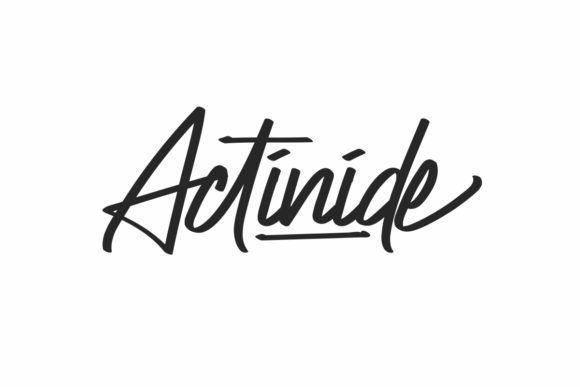
I still remember the frustration of working on a project, hours spent perfecting every detail, only to be held back by one thing: the font. It was a client request for a elegant, yet bold signature script that would make their brand stand out. I scoured the internet, tried font after font, but nothing seemed quite right. That was until I stumbled upon Actinide, a beautiful and daring signature script font that changed the game.
First Impressions: A Beautiful and Daring Font
Actinide is not just any font; it’s a statement piece. **Not too thin and not too thick, balanced and varied**, Actinide was designed to enhance the beauty of your projects. Its unique blend of elegance and boldness makes it perfect for designers, crafters, and creative hobbyists looking to add a touch of sophistication to their work.
- ✨ Balanced and varied strokes: Actinide’s strokes are perfectly balanced, making it easy to read and visually appealing.
- ✅ PUA encoded: With PUA encoding, accessing glyphs and swashes is a breeze, giving you endless creative possibilities.
- 💫 Elegant and bold: Actinide’s unique blend of elegance and boldness makes it perfect for a wide range of projects.
While Actinide is an amazing font, there are a few things to keep in mind:
- ⚠️ Some swashes may not work well in all applications: Depending on the software you’re using, some swashes may not display correctly. A quick workaround can usually solve this issue.
- 🤔 May require some experimentation: With so many glyphs and swashes available, it may take some time to get familiar with Actinide’s features and find the perfect combination for your project.
The Story Behind Actinide
While the true story behind Actinide’s creation remains a mystery, it’s clear that the designer was inspired by the elegance and boldness of signature scripts. With a focus on balance and versatility, Actinide was crafted to be a go-to font for designers and creatives looking to add a touch of sophistication to their work.
Q: What is PUA encoding, and how does it benefit Actinide users?
PUA (Private Use Area) encoding allows font creators to include additional glyphs and characters that aren’t part of the standard Unicode range. For Actinide users, this means easy access to a wide range of swashes, glyphs, and stylistic alternates.
Q: Is Actinide suitable for body text?
While Actinide is a beautiful font, it’s primarily designed for display purposes. For body text, you may want to choose a font with better readability.